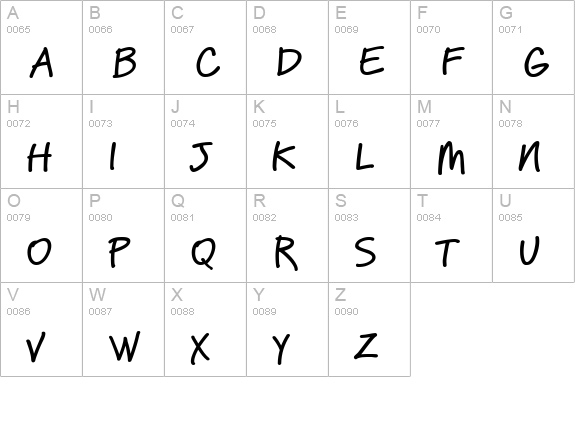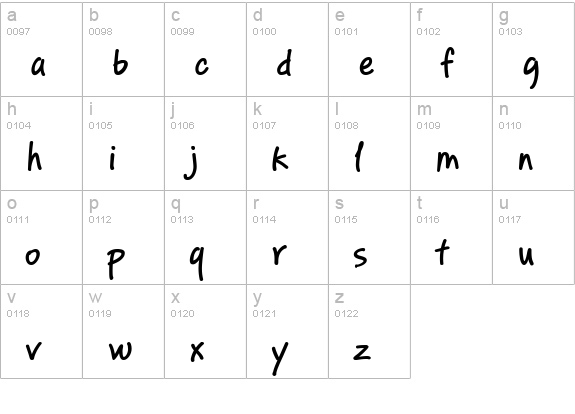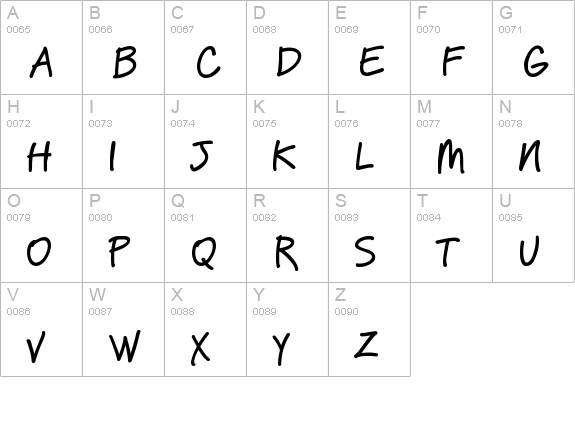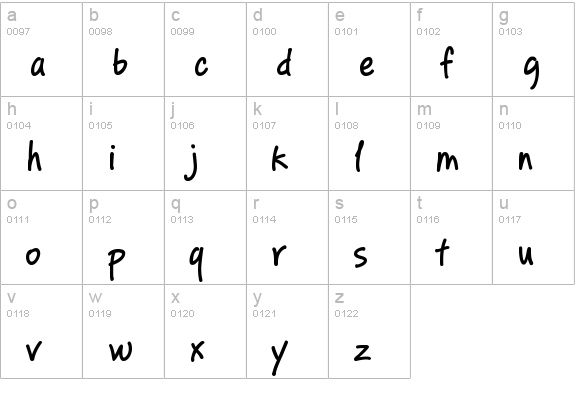
PFReminderPro-Medium Font Details
PFReminderPro-Medium is a balanced, medium-weight variant in the PFReminderPro typeface family \xE2\x80\x94 well suited to sub-headlines, navigation, and balanced editorial work.
Introducing PFReminderPro-Medium, a versatile and modern font that strikes the perfect balance between professionalism and creativity. This font is ideal for various design projects, from branding to marketing materials, thanks to its clean lines and contemporary appeal. What sets PFReminderPro-Medium apart is its seamless integration into any design, making it a go-to choice for designers looking to make a statement. The medium weight of this font adds a touch of sophistication without being overpowering, making it suitable for a wide range of applications. Best of all, PFReminderPro-Medium is available for free download at FontsMarket.com. Simply visit the website to access this font and elevate your design projects with its polished aesthetic and versatility. Experience the seamless beauty of PFReminderPro-Medium and take your designs to the next level today!